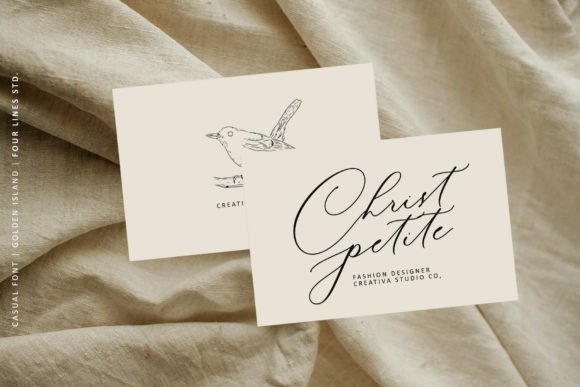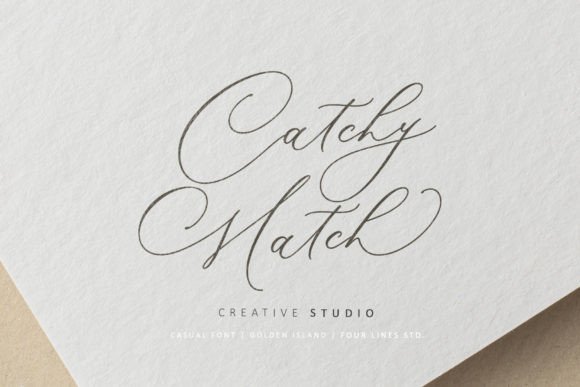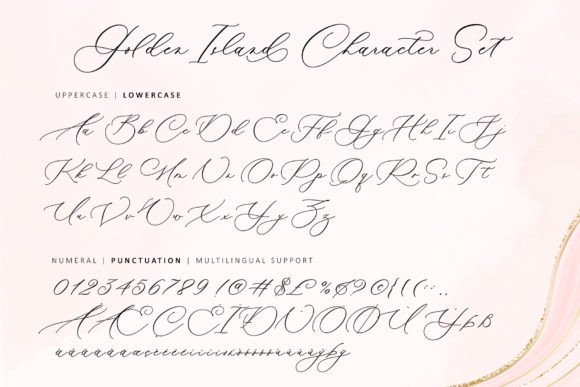
Introduction to Golden Island Font
Have you ever stared at a blank canvas, waiting for inspiration to strike? That’s exactly what happened to me last week. I was working on a creative project, searching for the perfect font to bring my design to life. And then, I stumbled upon the Golden Island Font – a delicate, elegant, and flowing script font that stole my heart.
As a designer, I know how valuable it is to have a high-quality design resource at your fingertips. The Golden Island Font is one such treasure, offering beautiful and well-balanced characters that can elevate even the most mundane design to new heights. Whether you’re working on a free download or a paid project, this font is sure to make your design stand out with its transparent background and versatility.
With its wide appeal and flexibility, the Golden Island Font is an absolute must-have for any designer looking to add a touch of sophistication to their work.
Key Features of Golden Island Font
- Unique, hand-drawn style with intricate details and textures
Honest Review: Golden Island Font
I recently stumbled upon the Golden Island Font, and I must say it’s a delightful addition to any designer’s toolkit. With its unique blend of tropical and elegant styles, it’s perfect for a creative project that requires a touch of sophistication.
- Unique and versatile design suitable for a range of creative projects
- High-quality typography with crisp and clear lettering
- Transparent background for seamless integration into various design elements
- May not be suitable for projects requiring a more minimalist or modern aesthetic
- Limited character set, which may not be ideal for extended text
Overall, the Golden Island Font is a great addition to any designer’s toolkit. Its unique design and high-quality typography make it an excellent choice for creative projects. While it may have some limitations, it’s definitely worth considering as a design resource.
How to Use Golden Island Font
The Golden Island Font is a high-quality, versatile font perfect for creative projects. It offers a unique, elegant design that can elevate any project. As a free download, it’s an excellent resource for designers and non-designers alike.
The Golden Island Font is ideal for a variety of projects, including branding, marketing materials, and digital products. Its elegant design makes it perfect for creating a professional and sophisticated look.